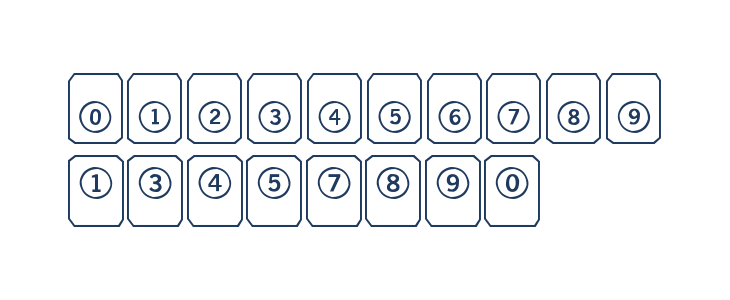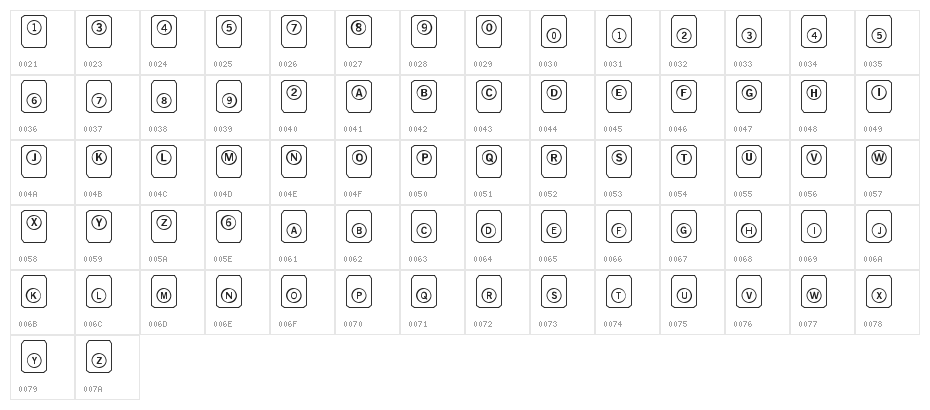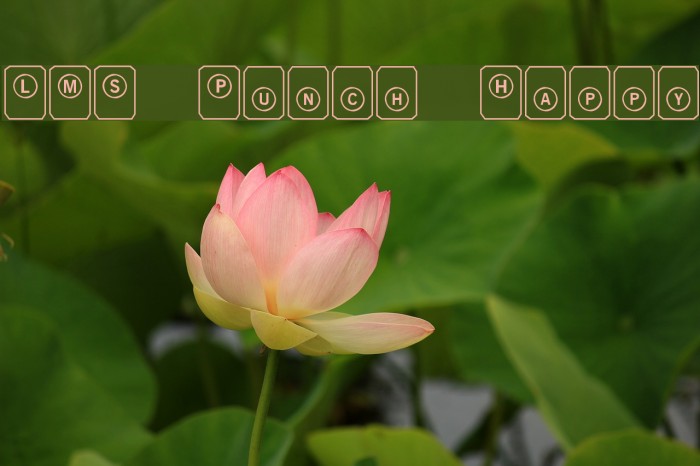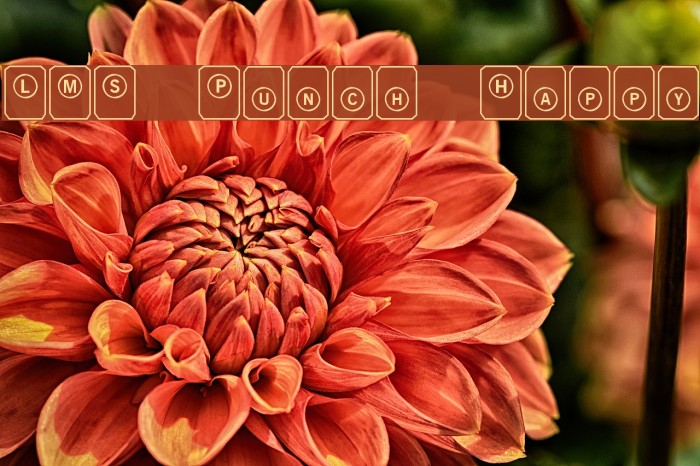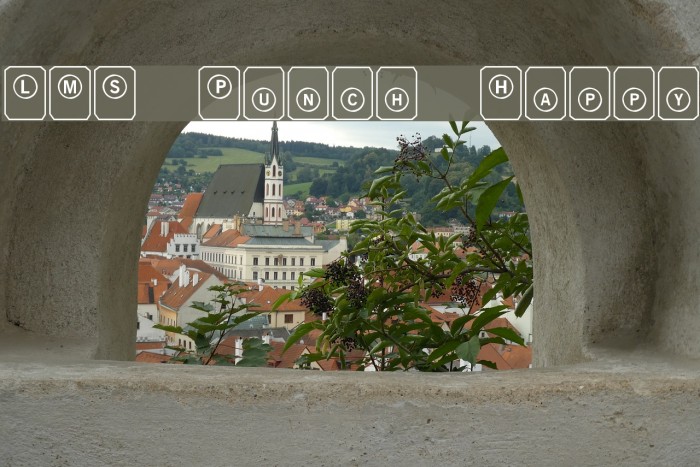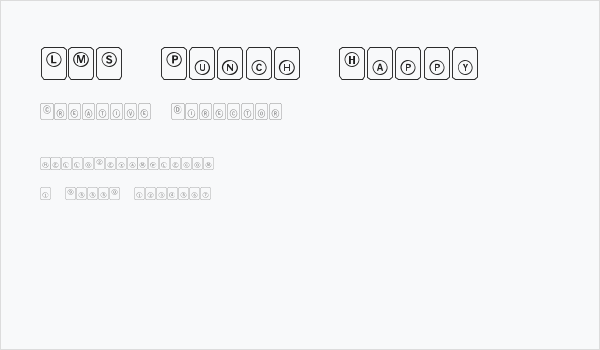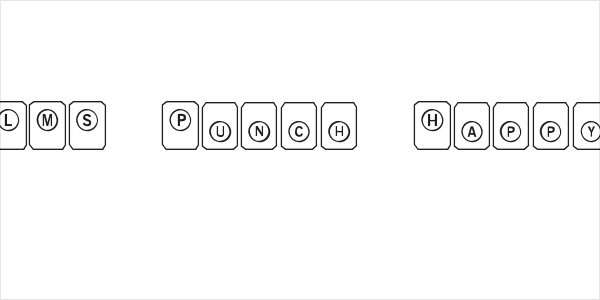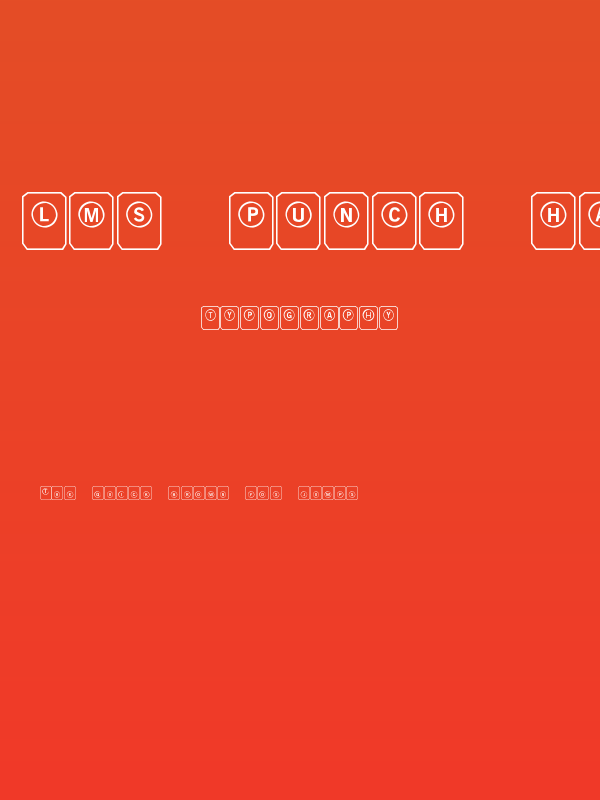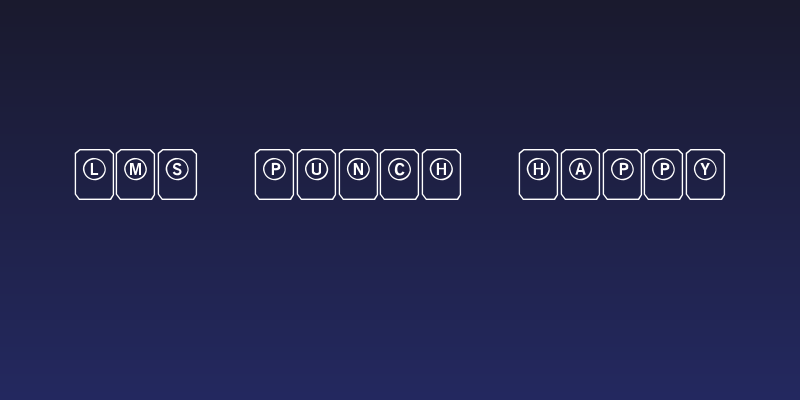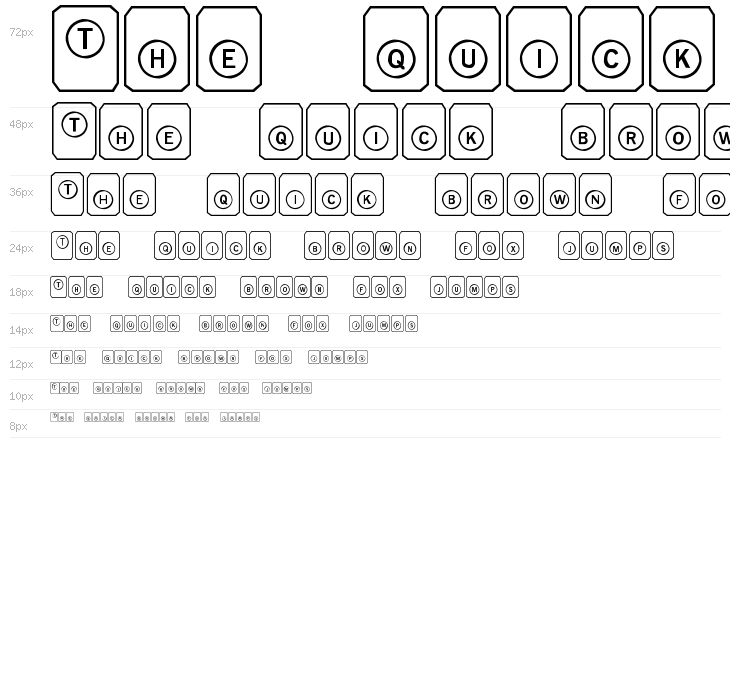
LMS Punch Happy Font
LMS Punch Happy Description
This font features a playful and bold design with each character encased in a rounded rectangle, reminiscent of vintage typewriter keys. The letters and numbers are centered within these shapes, creating a distinct and eye-catching appearance. The font's style is both retro and modern, making it versatile for various design projects. The characters are uniformly spaced, providing a clean and organized look. This font is ideal for projects that require a touch of nostalgia or a unique, standout typeface.
| Proposed Projects | Ideal for retro-themed designs, posters, branding, and any project needing a unique, standout typeface. |